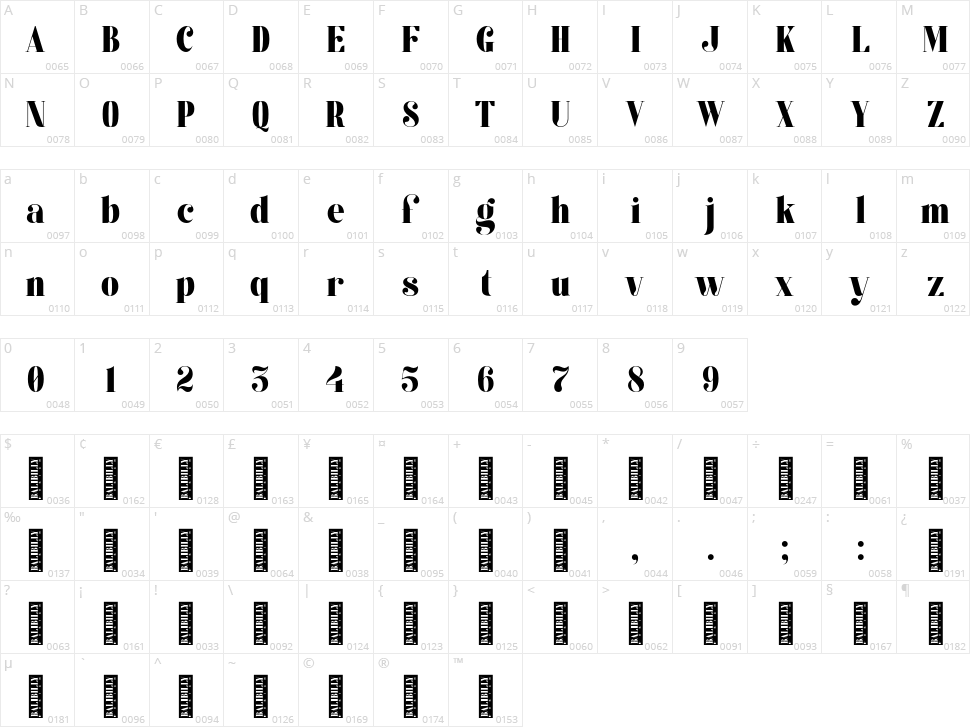
Balibilly Design proudly presents an elegant and unique font KAGE.
This style has become a TREND this year.
The idea was to incorporate some of the edgiest looks of modern luxury fashion. Its aim is created with a careful approach to make it as simple as possible to use by accessing stylistic alternate letters and ligatures in OpenType features. Just jump from ss01 to ss04 and vice versa to rock your next design.
Kage is a strikingly versatile font, It is a bold choice for branding projects, logos, postcards, magazine imagery, social media text overlays, invitations, posters, packaging, website headers, and more. The numerals from Kage are elegant for classic-style clock and watch design. Is guaranteed to make your customers jaw in a snap! Easy to start creating stand out designs with this font.